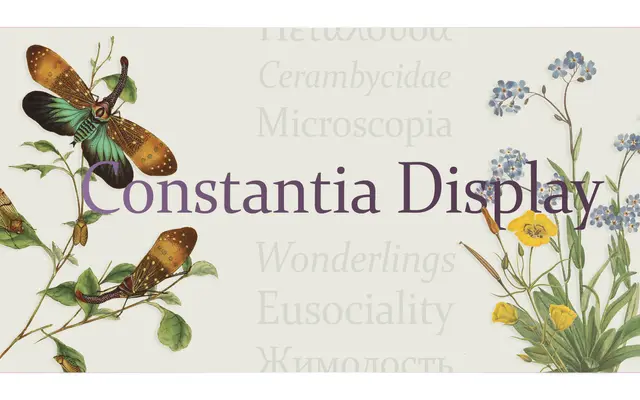
Constantia Display
Tiro Typeworks · John Hudson
A display-optical companion to the Constantia typeface, designed by John Hudson with assistant work from Paul Hanslow, covering Latin, Cyrillic and Greek.
Offered in two styles, Regular and Italic, this display-weight serif builds on the classical proportions of the original Constantia commissioned by Microsoft. John Hudson's design refines stroke contrast and spacing for larger sizes, where optical corrections at text scale would otherwise feel heavy-handed. The broad character set of 1,376 glyphs supports extended Latin, Cyrillic and Greek scripts.
Constantia Display is a display-oriented serif with classical proportions and refined stroke contrast, consistent with the transitional serif tradition established by the original Constantia commissioned by Microsoft.